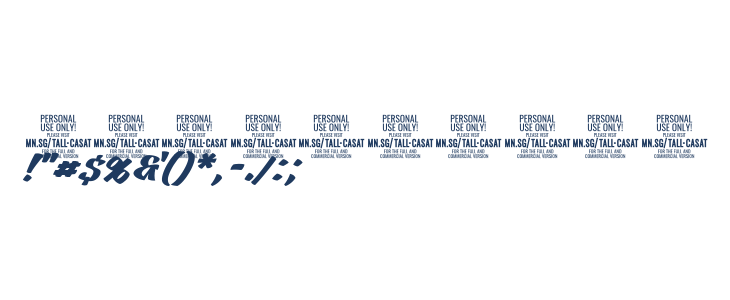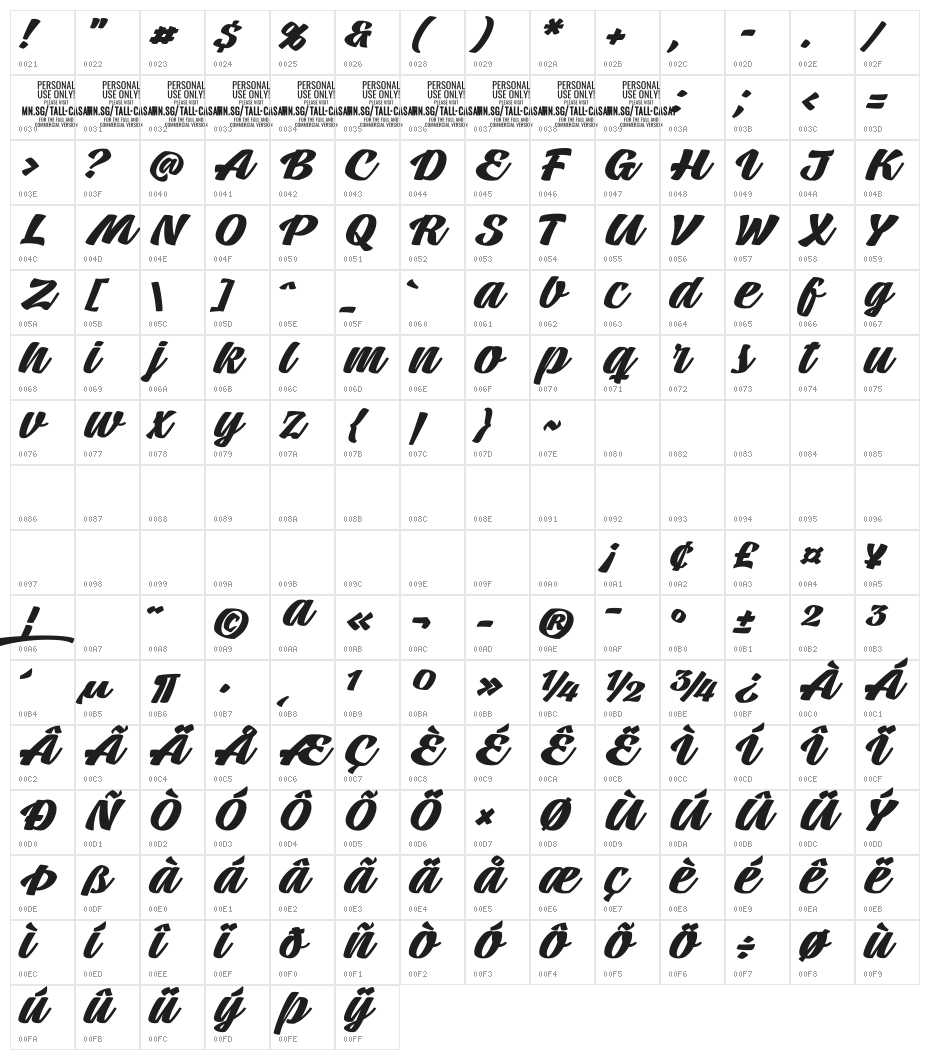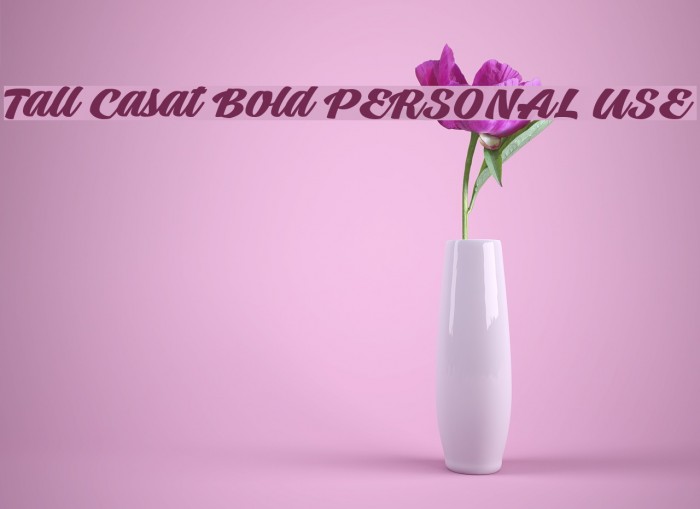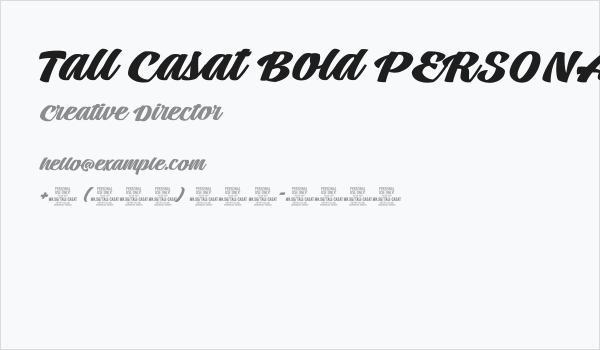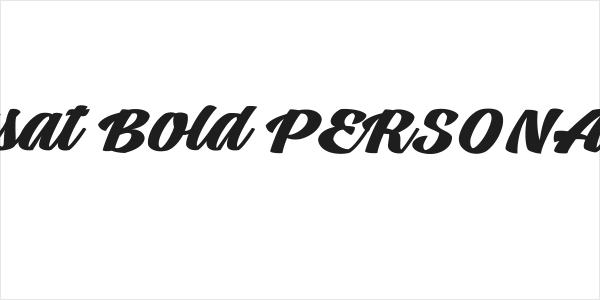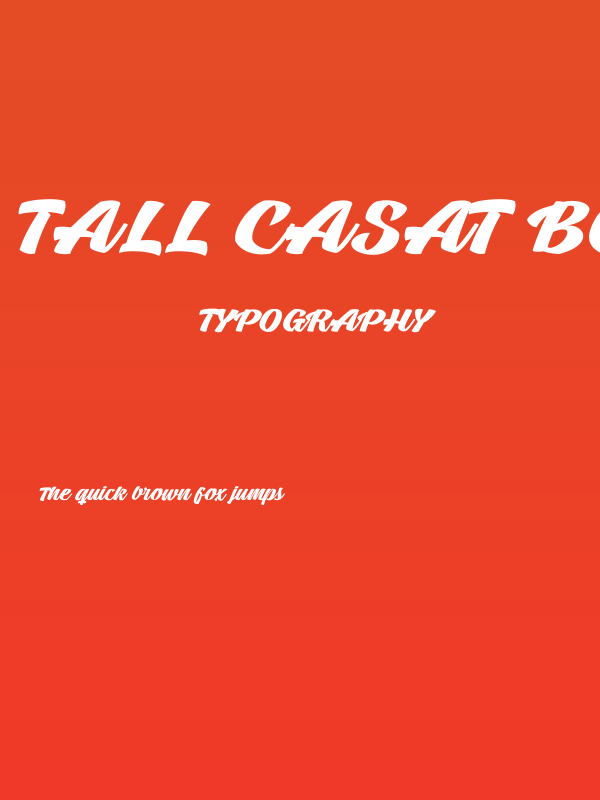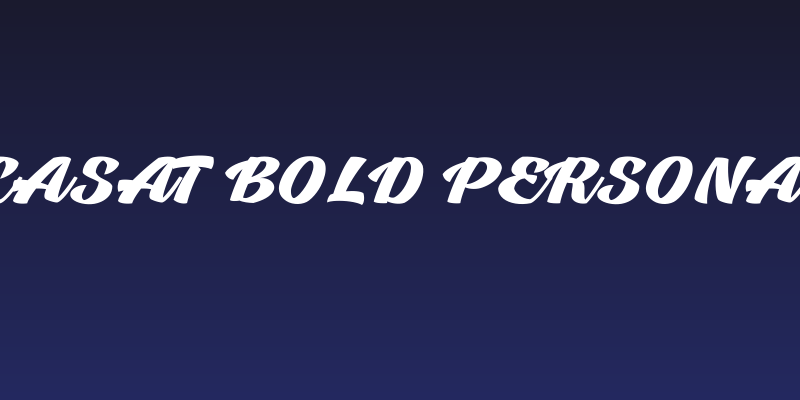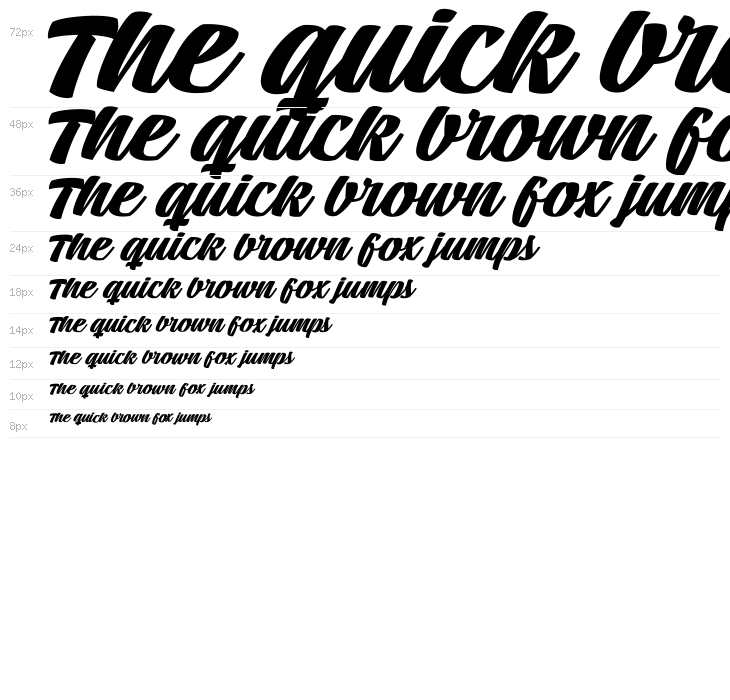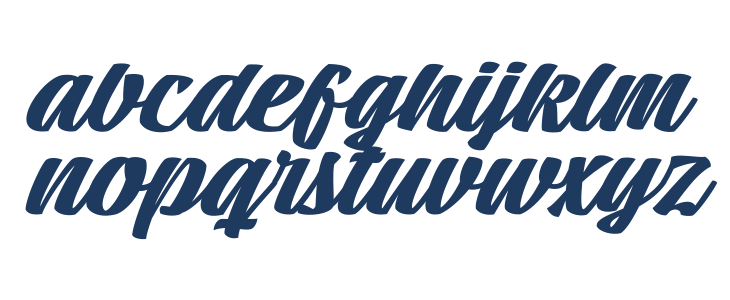
Tall Casat Bold PERSONAL USE Font
Tall Casat Bold PERSONAL USE Description
This font features a bold and dynamic script style with a strong presence. The letters are connected, giving it a flowing and cohesive appearance. The strokes are thick and consistent, providing a sense of strength and confidence. The uppercase letters are particularly striking, with a slight slant that adds to the overall movement of the text. The lowercase letters maintain the same boldness, ensuring readability while retaining the decorative flair. This font is ideal for making a statement, with its high contrast and dramatic style.
| Proposed Projects | Ideal for branding, logos, headlines, and posters where a strong, stylish impact is desired. |